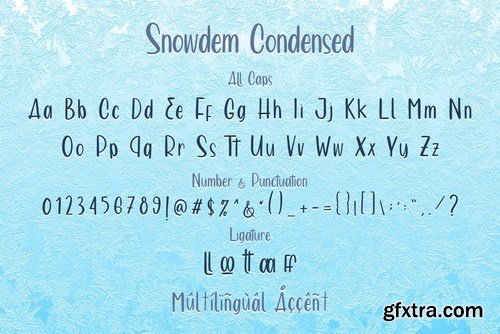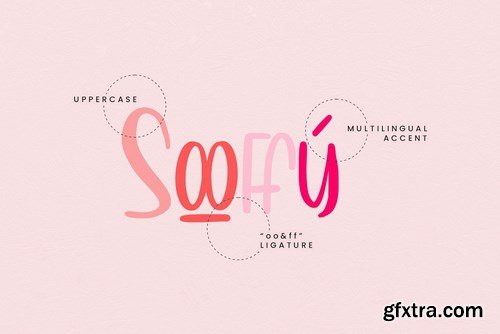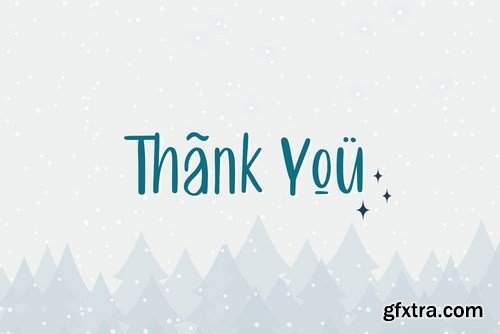
Moon Freze font a display typeface awesome character with 2 different style, regular and Condense. Moon Freze font it’s perfect for namecard, poster, logo, magazine, cover, banner, tshirtdip and headers, or even large-scale artwork.